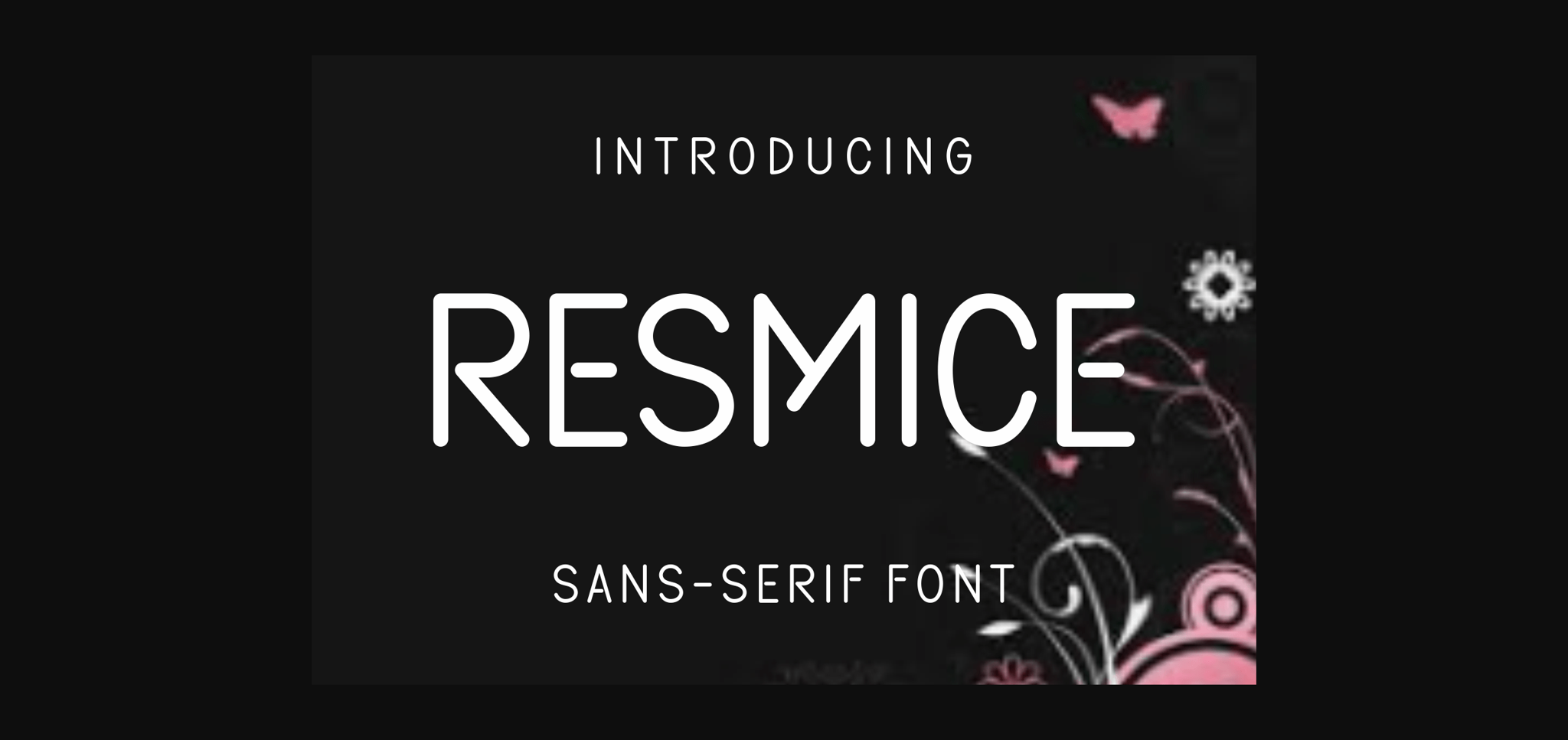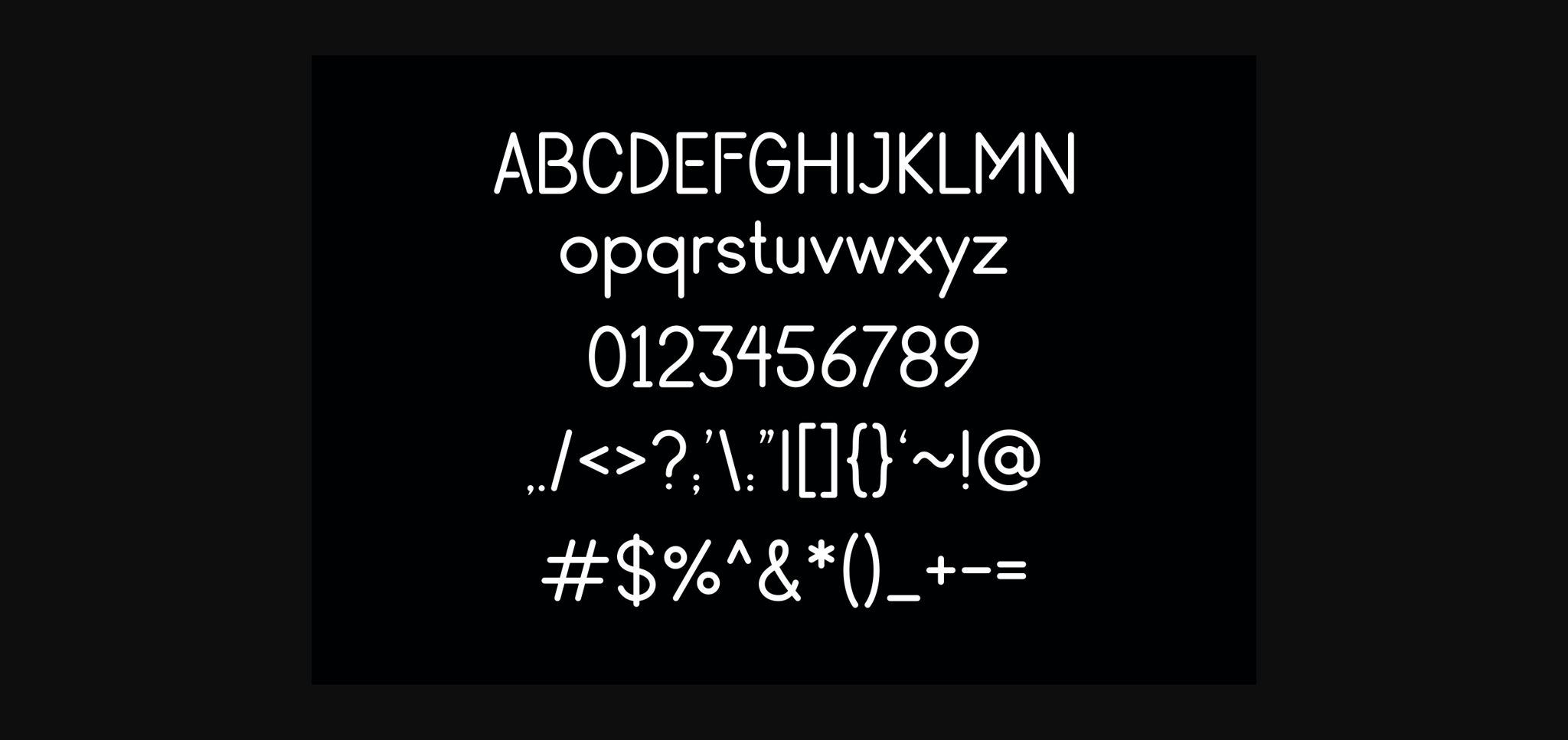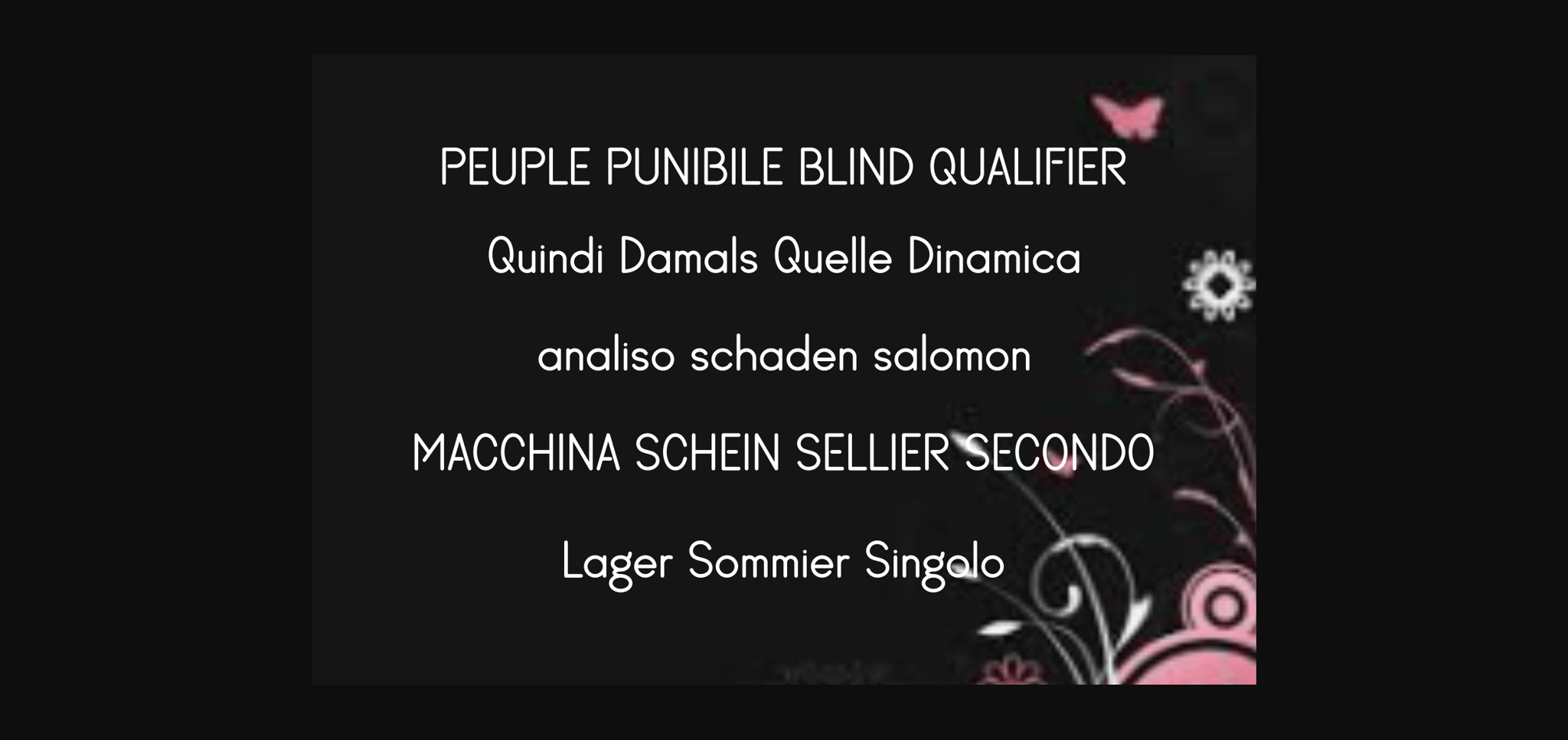
HomeSans Serif FontsResmice Font Sans Serif Fonts Resmice Font FacebookXPinterestWhatsApp 1 of 5 ... Resmice Font Poster 2... Resmice Font Poster 3... Resmice Font Poster 4... Resmice Font Poster 5... About Resmice Font Resmice is a fun and cool sans serif font. Add it confidently to your projects and you will love the results! DOWNLOAD NOW People also explored Getterny Mamthi Font Amigueta Script Font Anychild Font Happy Proscrire Font Floral Buds Monogram Font Soundrops Font Explorado Font Backstreet Font Lovestar – Cute Script Font 482 0 TagsResmiceResmice Font Previous articleAbristin FontNext articleRegishort Font LEAVE A REPLY Cancel reply Comment: Please enter your comment! Name:* Please enter your name here Email:* You have entered an incorrect email address! Please enter your email address here Website: Save my name, email, and website in this browser for the next time I comment. Personal Use Free Morning Miow Personal Use Free Read more about this font Lazy Sunday Personal Use Free Read more about this font Boston Traffic Personal Use Free Read more about this font Catandra Script Personal Use Free Read more about this font BLOG Modern Sans-Serif Fonts That Brands Love in 2025 In 2025, modern sans-serif fonts remain a top choice for brands looking to project clarity, professionalism, and... Best Fonts for T-Shirt Design – Top 2025 Picks Fonts That Capture the Spirit of New York City Top 10 Handwritten Fonts That Elevate Your Designs